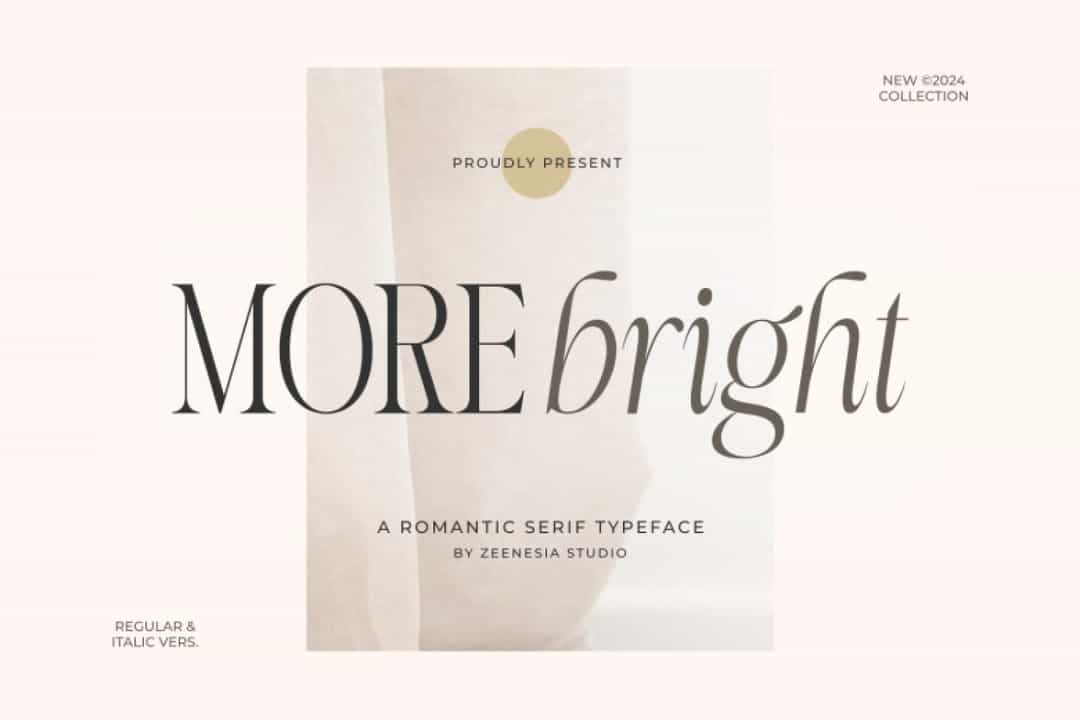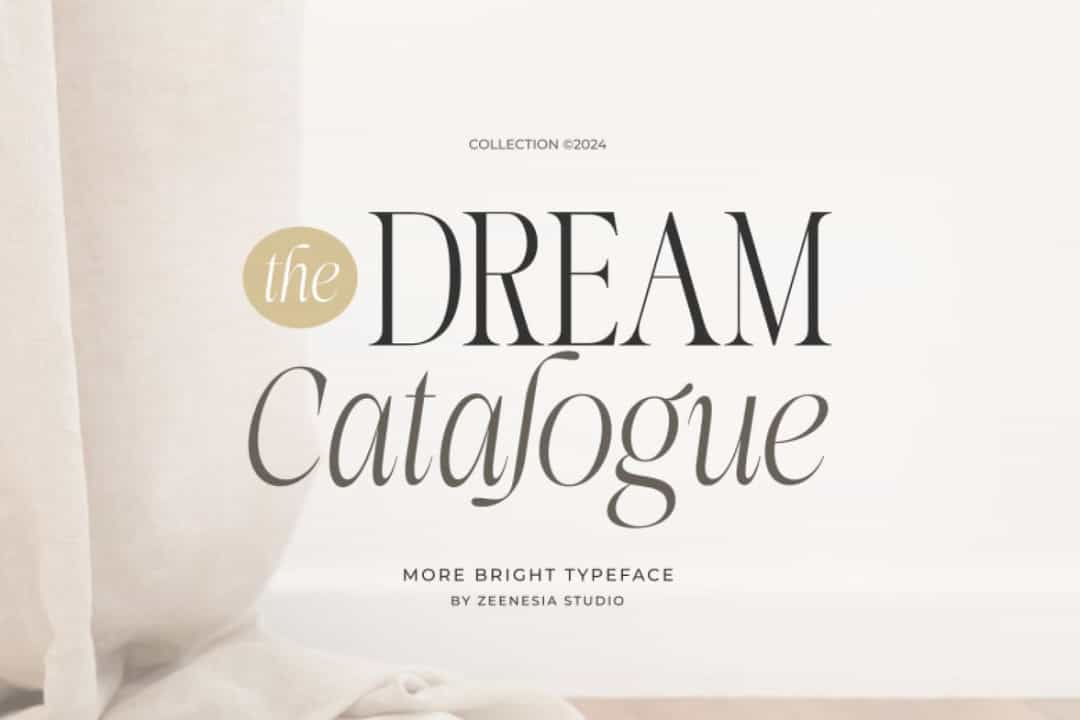
More Bright is an elegant combination of serif and regular fonts that provides a versatile font suitable for large designs. The stylized style of Ligature and Stylistic Alternate makes your designs come alive!